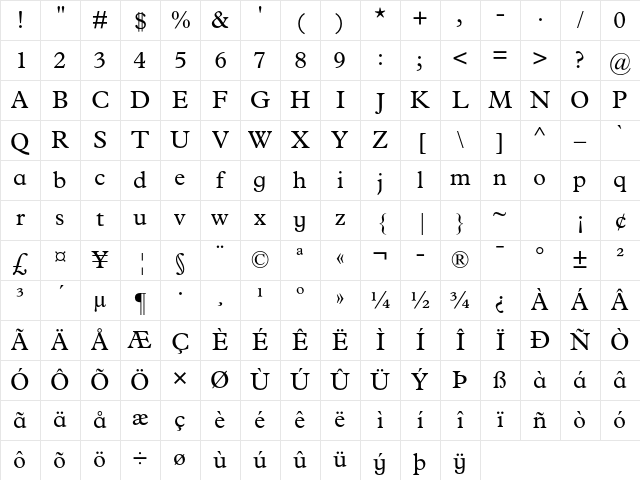
Plantin Infant MT Std Regular
Design Context for Plantin Infant MT Std
Plantin Infant MT Std is a composed and adaptable typeface that performs quietly and consistently across a wide range of design contexts.